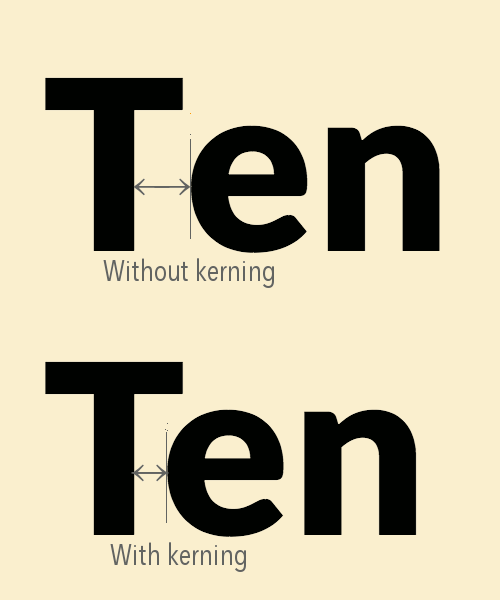
Setting kerning and tracking in css. When working in print, typographers also refer to it as tracking.
Incredible Font-Kerning Vs Letter-Spacing Css With New Ideas, In the image below, for instance, the examples on the left do not use kerning, while the ones on the right do: It is applied to the letters of the word of any sentence.
Modern software programs usually provide an autokerning feature, however it’s rarely a sufficient alternative for manual kerning. Generally we have 5 css tools available to us. Similarly, kerning is one of the properties of css text. Css font kerning vs letter spacing passionate about putting space between pair of them does it unique and readability of text vs tracking.
When two characters are placed next to each other, their sidebearings add up to form the actual. It explains how much the letters of a word are spaced. Kerning is the process of adjusting the spacing between individual letter forms. Many people are oblivious to kerning.
For fonts that do not include kerning data, this property will have no visible effect. The value of the kerning can be a positive sign or a negative sign. That is, it controls how letters are spaced. It can make text easier and more pleasing to read. Kerning, Leading, Tracking, and Everything You Need to Know About Text.
Modern software programs usually provide an autokerning feature, however it’s rarely a sufficient alternative for manual kerning. Defines normal space between characters. At least, not for body text. Similarly, kerning is one of the properties of css text. javascript Random Kerning in text area (input) for each letter.
Kerning is the process of adjusting space between specific letter pairs to improve legibility in words that have inconsistent spacing. Similarly, kerning is one of the properties of css text. Example # two lines of. Many people are oblivious to kerning. CSS liststyleposition Property.
Kerning Defines How Letters Are Spaced.
The proper term for the spacing is sidebearings. A font property is the text style that includes color, font style, alignment, etc. Kerning between individual letters can’t be easily adjusted in css, at least not without creating a class for. Sets this property to its default value.